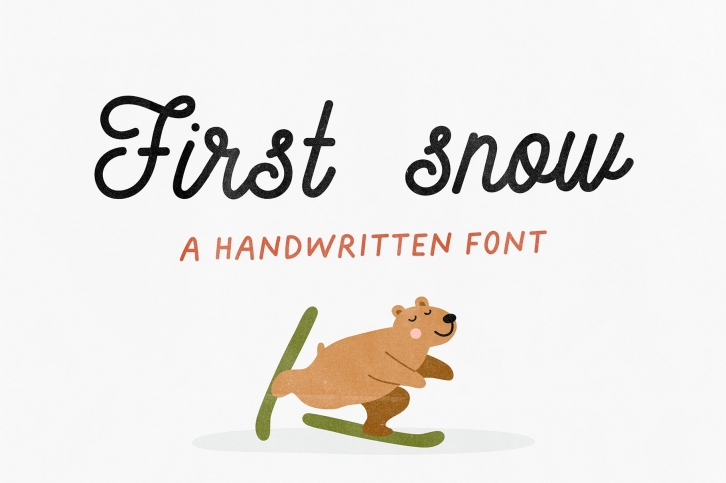
First snow is a trendy and unique font with an authentic style. It was designed by Julia Volkova and it's a great choice for creative people who need such a font. It was released on October 18, 2022 and the file size is 19.14 MB. First snow will add an organic vibe to any design idea!